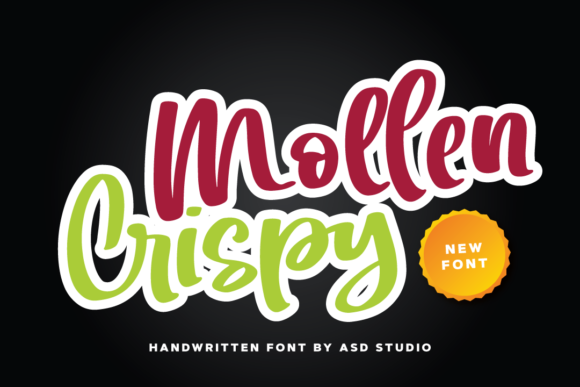
Embark on an extraordinary typographic journey with Mollen Crispy, a captivating handwritten font that exudes an aura of casual elegance. Crafted meticulously by the skilled artisans at Asd Studio, this font is a masterpiece designed to leave an enduring impression.
As you immerse yourself in the world of Mollen Crispy, you'll discover a symphony of beautifully crafted letters, each bearing a unique and artistic touch. Its fluid strokes evoke a sense of spontaneity and authenticity, making it the perfect choice for those seeking a font that reflects their individual style.
Step into a realm where creativity thrives, where Mollen Crispy's versatility knows no bounds. Its charming character seamlessly adapts to a myriad of projects, from eye-catching logos that demand attention to branding campaigns that exude professionalism. Unleash your imagination and let Mollen Crispy be your muse as you create designs that resonate with your audience.
With Mollen Crispy as your creative companion, transform ordinary text into captivating works of art. Its graceful curves and playful flourishes lend an air of sophistication to quotes, making them leap off the page and into the hearts of your readers. Prepare to be captivated by the timeless elegance of Mollen Crispy, a font that transcends trends and remains a timeless classic.